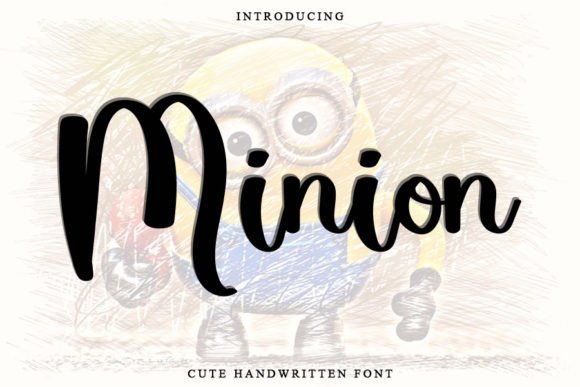
Add Personality and Style with Minion Handwritten Font
The Minion Handwritten Font is a beautifully crafted typeface that adds a hint of elegance and charm to any creative project. With its clean lines and quirky personality, this font bridges the gap between playful and sophisticated design. Whether you’re working on logos, branding, or DIY crafts, Minion offers a unique voice for your visual story.
Its gentle curves and handwritten flow make it an excellent choice for projects that aim to stand out while remaining approachable.
Perfect for Logos, Branding, and Social Media
Minion is highly versatile and designed for creative professionals and hobbyists alike. It’s especially ideal for logo design, brand identity, and social media content. The font’s friendly and elegant tone works well across a variety of industries, from handmade businesses and fashion boutiques to lifestyle blogs and wellness brands.
In addition, Minion is perfect for YouTube channel art, Instagram posts, Pinterest graphics, and personal branding. Its eye-catching look helps your content connect more deeply with viewers by adding a human, handcrafted touch.
A Quirky Yet Refined Script Font
What sets the Minion Font apart is its balance of clean structure and subtle whimsy. It features slight irregularities in stroke and form that mimic the natural flow of handwriting. These nuances give your text personality and warmth while ensuring it remains professional and readable.
Whether you’re using it for headlines, short quotes, or logo slogans, Minion delivers style without sacrificing legibility.
Designed for Print and Digital Perfection
Minion performs consistently across both print and digital mediums. In print, it’s excellent for business cards, invitation designs, packaging, and stickers. Digitally, it’s optimized for website headers, email newsletters, social graphics, and digital scrapbooking.
To build visually balanced layouts, pair Minion with a minimal serif or sans-serif font. This contrast will keep your designs clean while allowing Minion to shine as the feature element.
Why Creatives Choose Minion Handwritten Font
Here are just a few reasons designers love Minion:
Elegant yet playful handwritten style
Clean lines with quirky personality
Works across various project types and formats
Fully readable in both large and small text sizes
Let Minion Elevate Your Design Aesthetic
In conclusion, the Minion Handwritten Font brings together elegance, creativity, and personality in one stylish package. Whether you’re building a brand, crafting a DIY project, or enhancing your online presence, Minion adds that magical spark that sets your design apart.
If you’re searching for a handwritten font that is both clean and character-rich, Minion is the perfect typeface to bring your creative ideas to life.